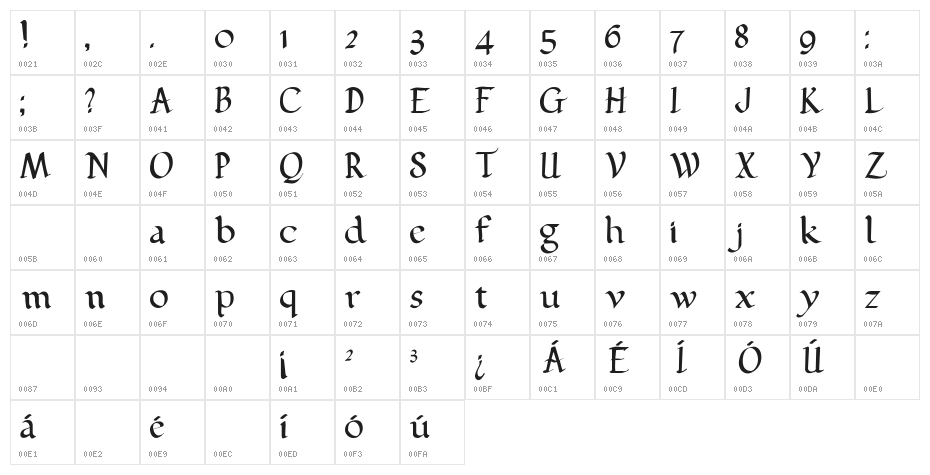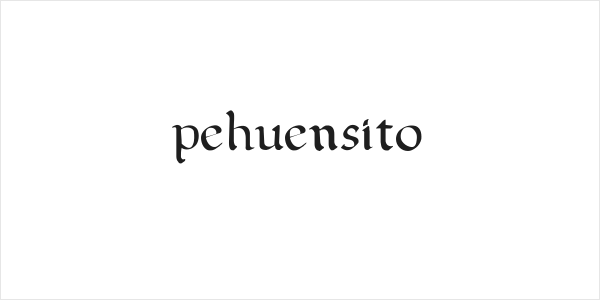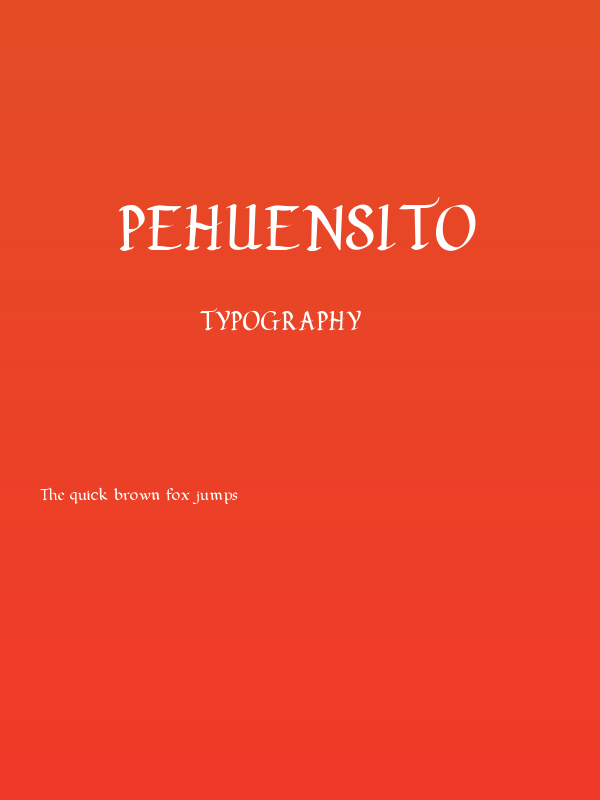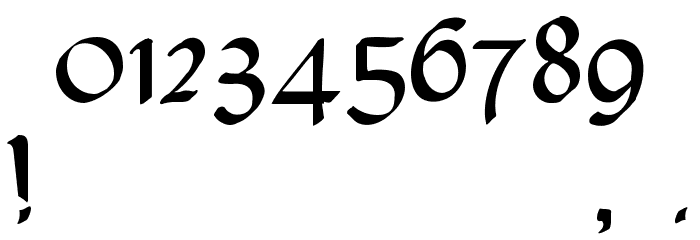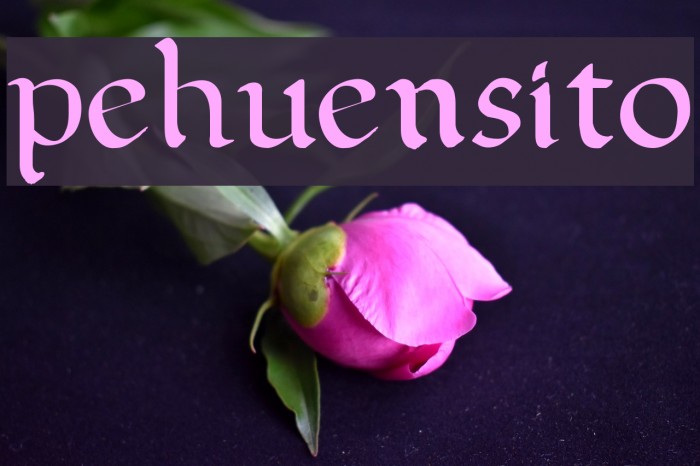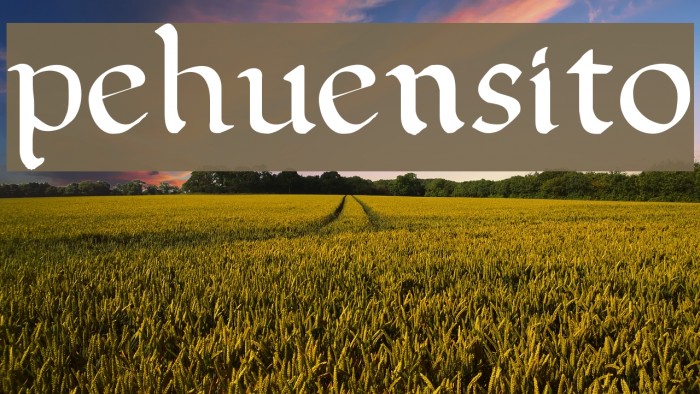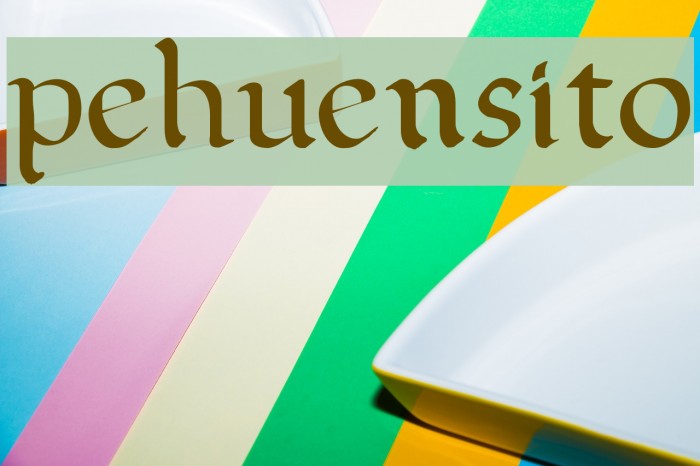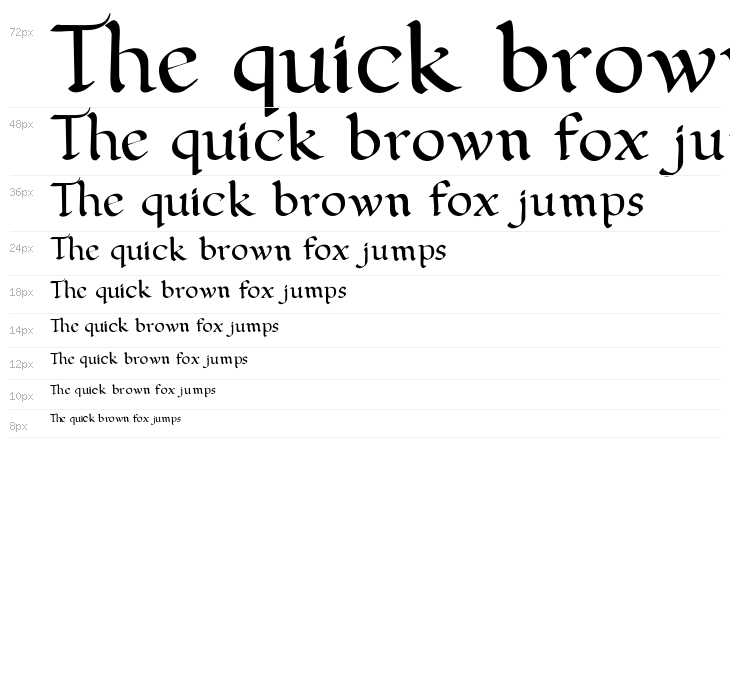
pehuensito Font
This font features a distinctive and elegant style with a calligraphic influence, characterized by its flowing and slightly angular strokes. The uppercase letters exhibit a formal and decorative appearance, while the lowercase letters maintain a consistent and harmonious flow. The numerals are designed with a classic touch, complementing the overall aesthetic. The special characters are crafted with attention to detail, enhancing the font's versatility. This font is well-suited for projects that require a touch of sophistication and historical charm.
| Use Case | Headlines, Logos, Decorative text |
| Proposed Projects | Ideal for wedding invitations, historical documents, branding, and decorative headings. |